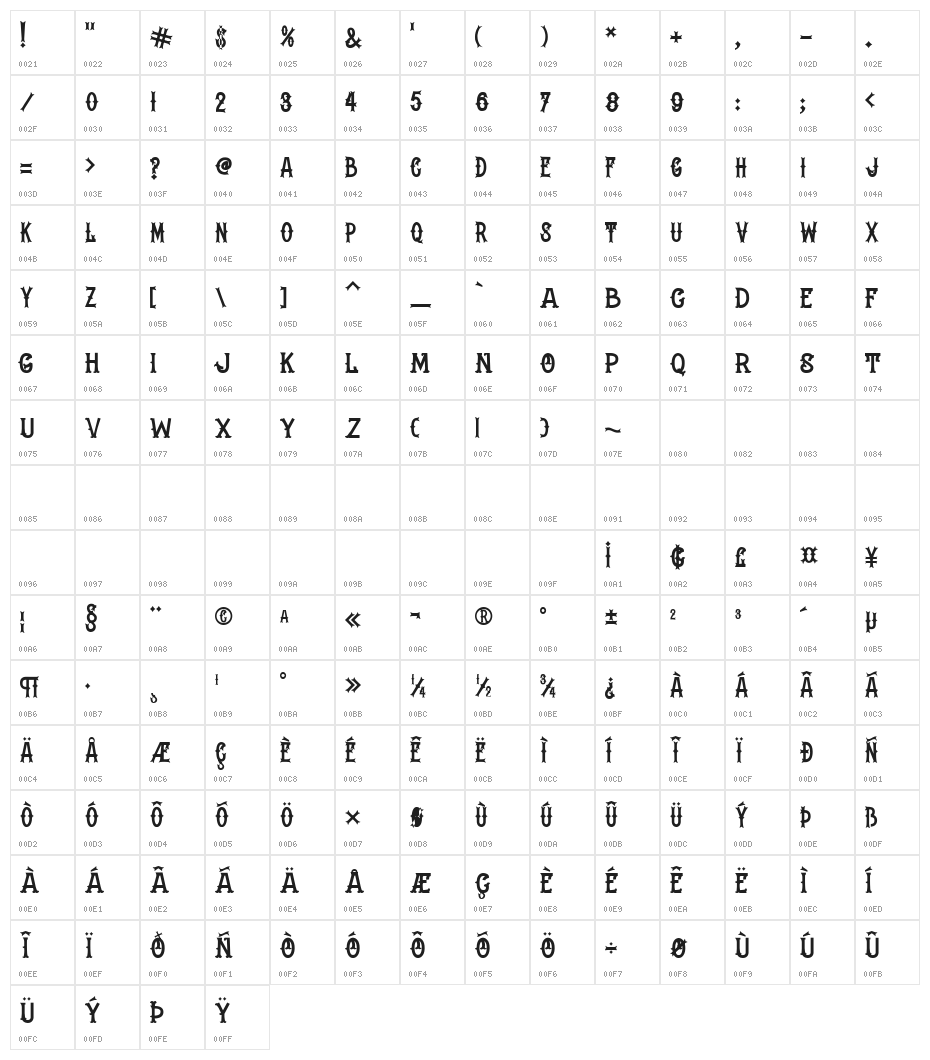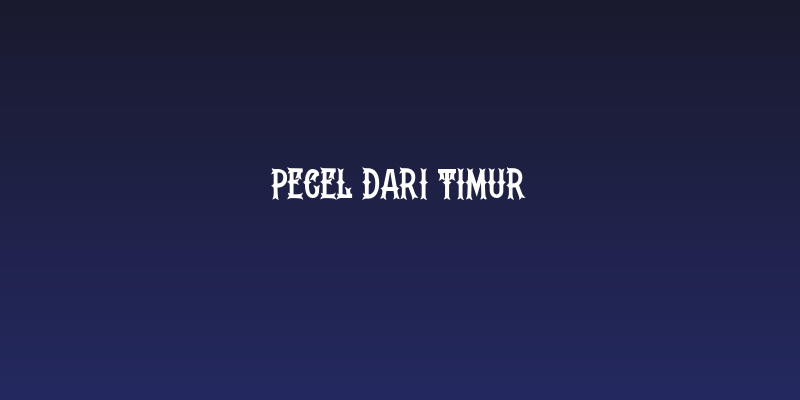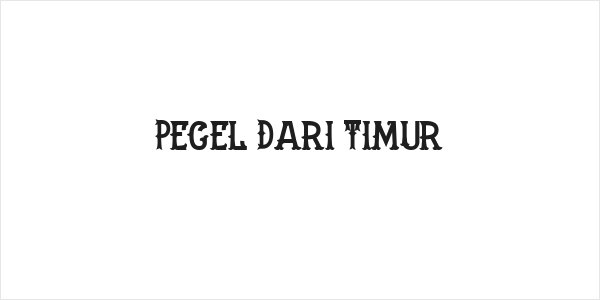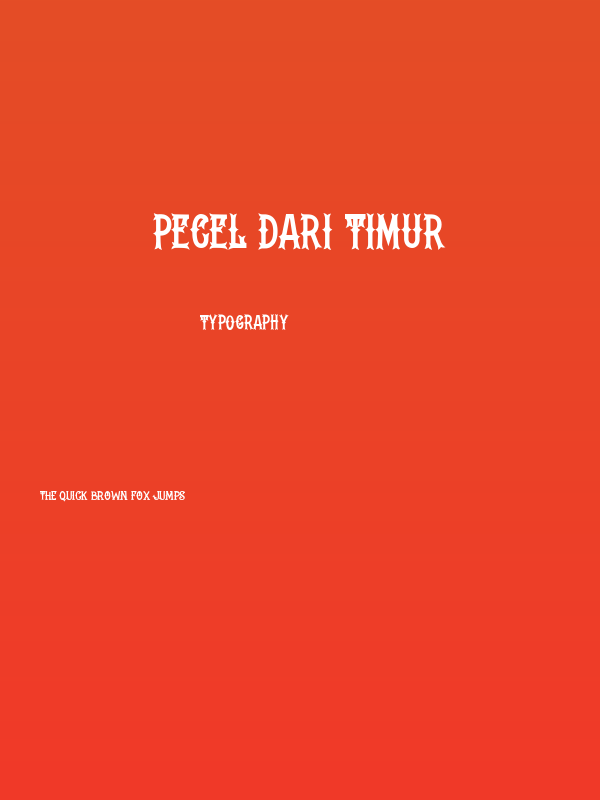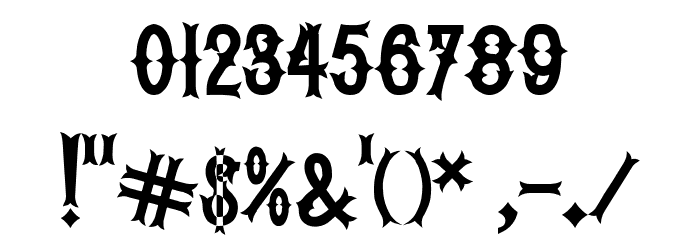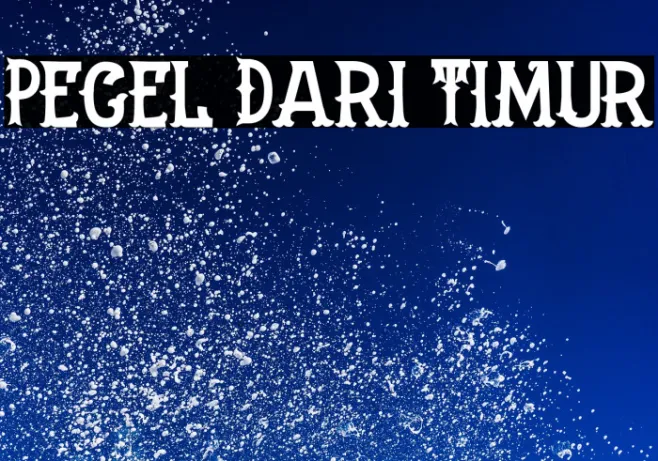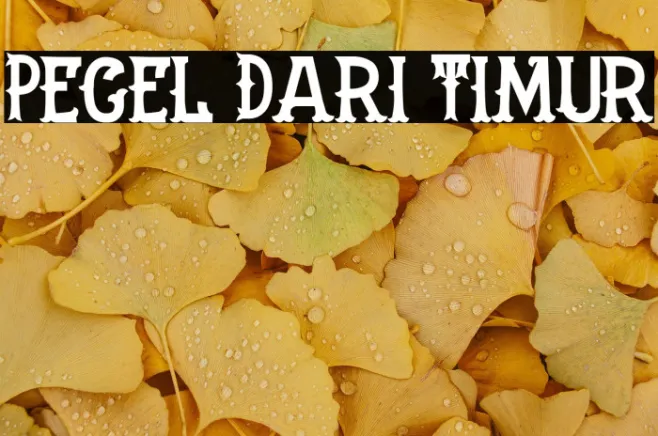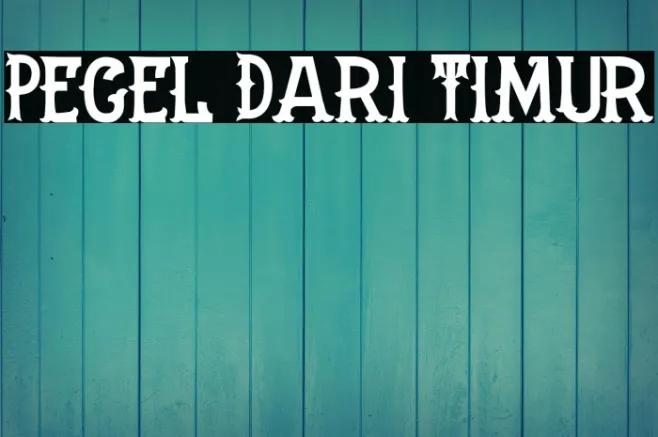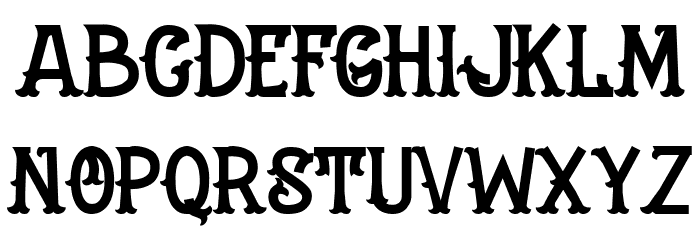
Pecel Dari Timur Font
Pecel Dari Timur Description
This font features a bold and decorative style with sharp, pointed serifs and intricate detailing that gives it a unique, edgy appearance. The uppercase letters are particularly striking, with exaggerated curves and angles that create a sense of movement and energy. The lowercase letters maintain this dynamic style, ensuring consistency throughout the typeface. The numbers and special characters are equally bold and distinctive, making them stand out in any design. This font's dramatic flair makes it ideal for projects that require a strong visual impact.
| Proposed Projects | Ideal for poster designs, album covers, branding for edgy or alternative brands, and any project needing a bold statement. |